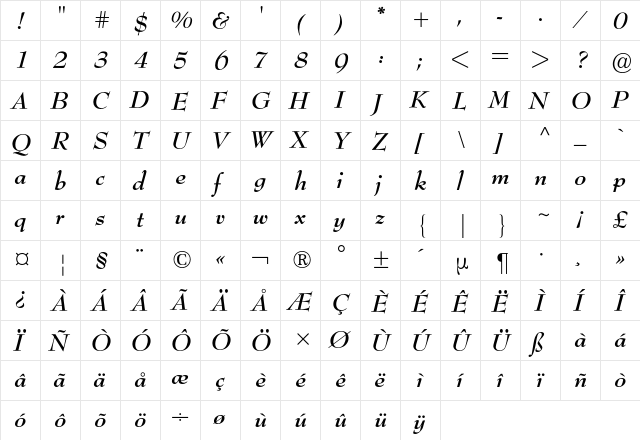
Bernhard Modern BQ Regular
Bernhard Modern BQ offers clean, dependable letterforms without strong stylistic allegiance, making it a practical choice for designers who need flexibility.